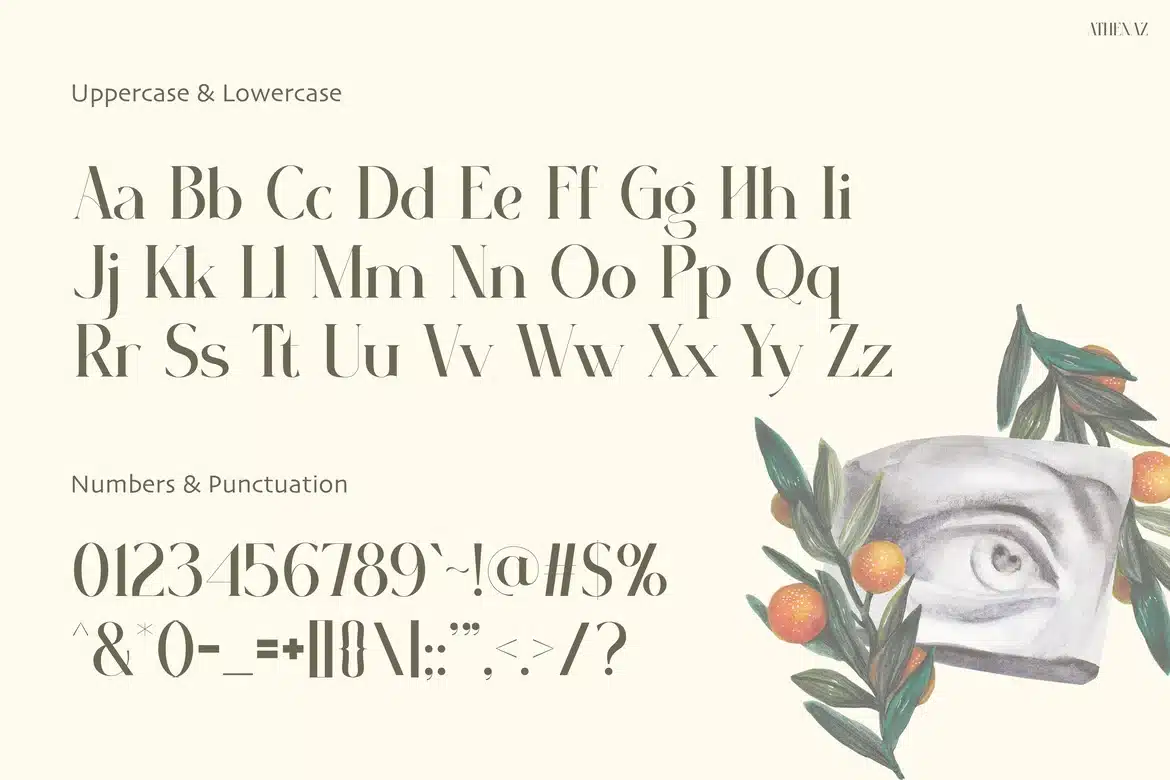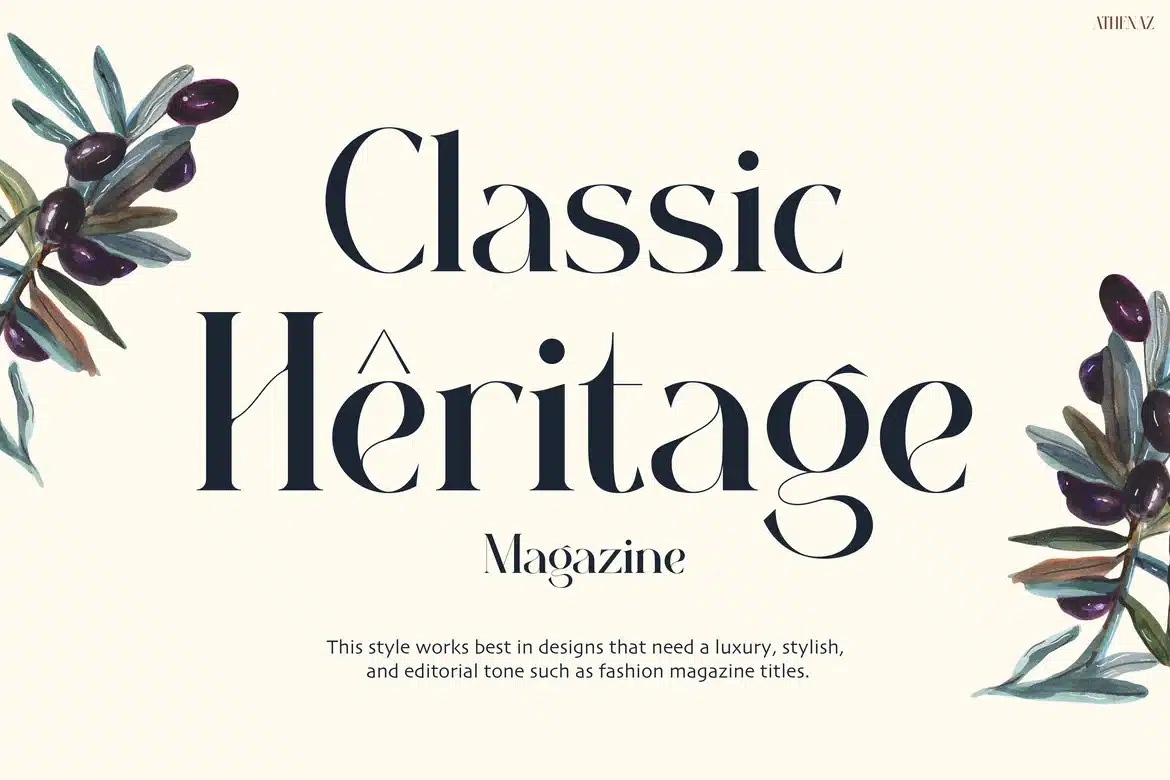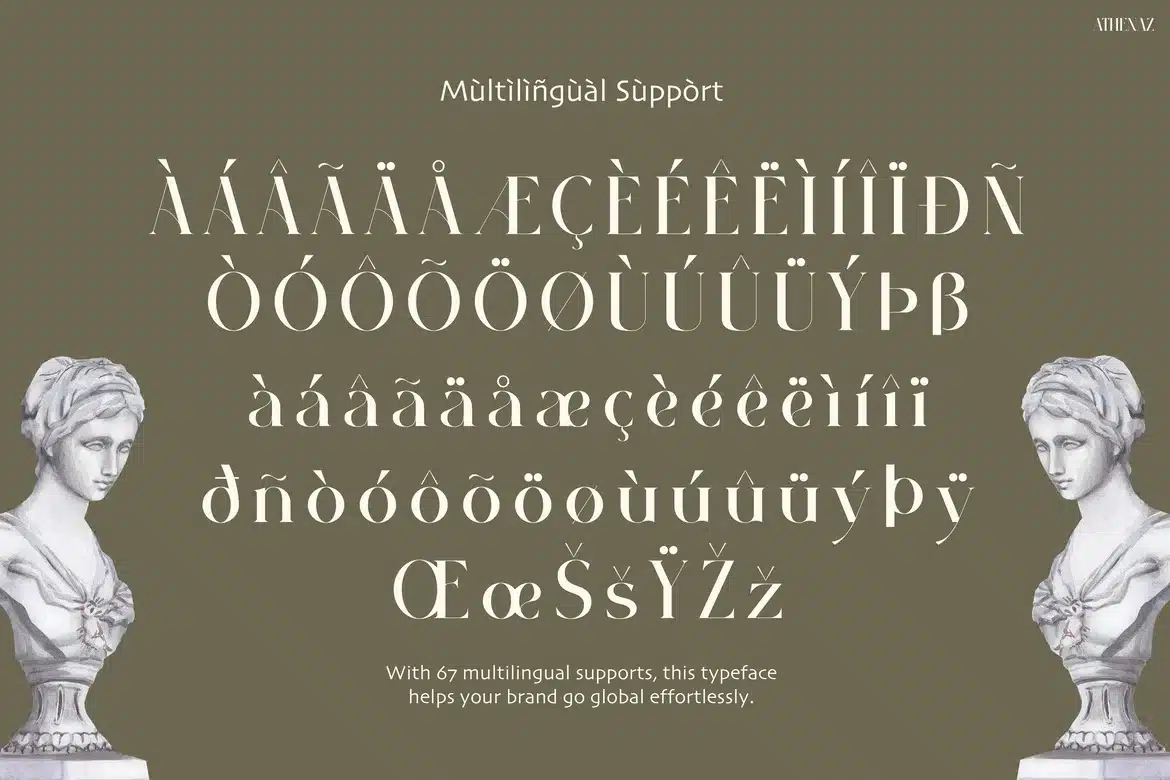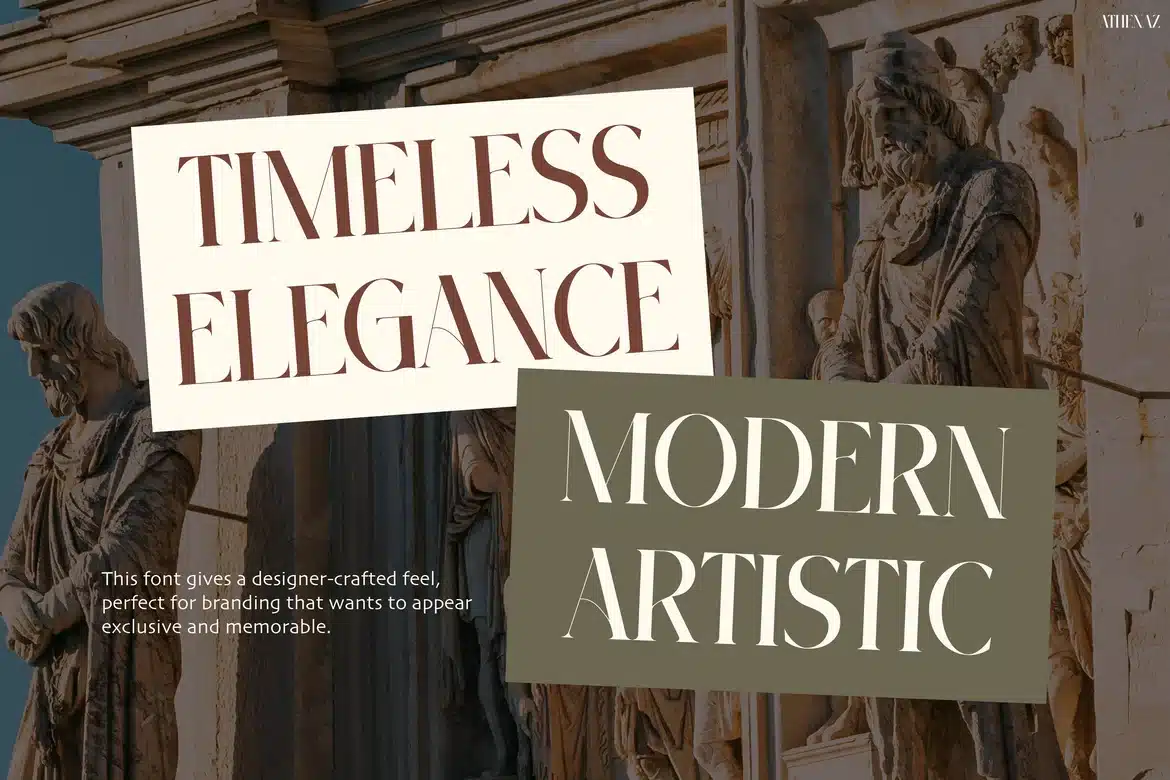
Athenaz – Modern Classic Display Font
Athenaz is a high-contrast modern serif designed for elegant editorial headlines and refined branding, combining confident vertical stems, ultra-thin hairlines, and graceful curved terminals that create a sophisticated visual rhythm. The typeface delivers an elegant, artistic, and confident vibe, making it an ideal choice for fashion magazines, Instagram branding, lifestyle campaigns, and product packaging. Its refined letterforms bring clarity and visual drama, helping headlines feel expressive without losing readability.
Athenaz features sharp contrast, balanced proportions, and smooth serif transitions, giving designers a powerful tool for creating stylish editorial layouts, brand identities, and premium-looking marketing visuals.
Perfect for projects such as:
- Fashion magazine headlines
- Editorial design and publishing
- Beauty and lifestyle branding
- Boutique product packaging
- Instagram marketing visuals
For designers seeking a modern editorial serif with expressive contrast, Athenaz offers a refined visual tone that instantly elevates branding and publication design. Its graceful structure performs beautifully in branding systems, posters, editorial spreads, website headers, and social media campaigns. Because the typography feels confident and sophisticated, it helps brands communicate heritage, elegance, and creative authority.
Key Features :
High-Contrast Letterforms
- Strong vertical strokes paired with delicate hairlines create elegant visual drama.
Editorial-Ready Typography
- Crafted specifically for headlines, fashion layouts, magazine titles, and branding systems.
Refined Serif Details
- Graceful terminals and balanced proportions enhance readability while maintaining elegance.
Expressive Yet Professional
- Ideal for beauty brands, editorial publications, lifestyle campaigns, and creative studios.
Multilingual Support – 67 Languages
- Expands your branding reach across global markets.
Timeless Modern Character
- Blends classic serif influence with modern design aesthetics.